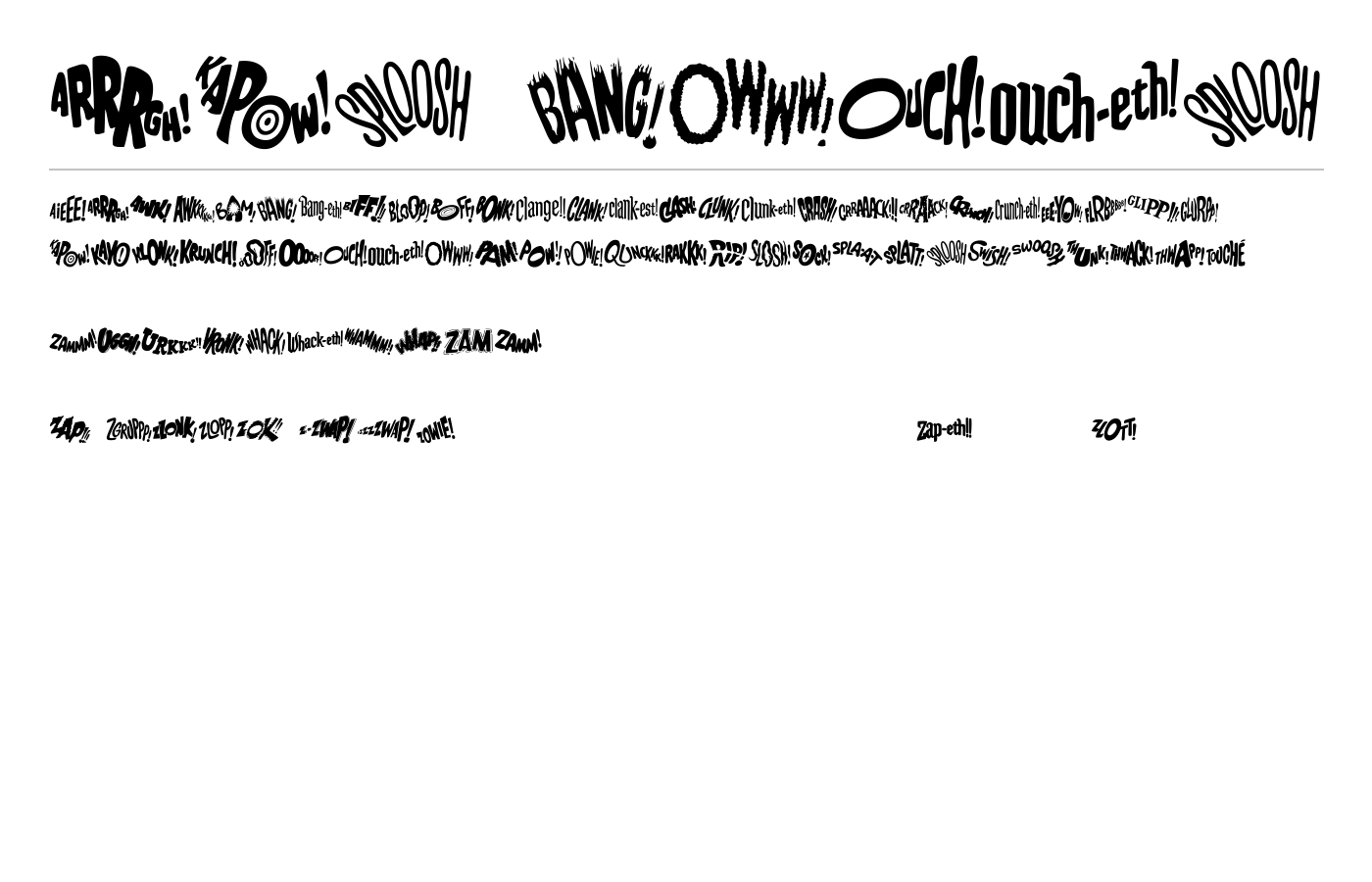
Bat Fight is a bold, playful display font inspired by comic book sound effects, featuring irregular, highly expressive letterforms with varied stroke widths and dynamic shapes. Its uneven, exaggerated style conveys excitement and action, making it perfect for fun headlines, graphic novels, posters, and any design that needs an energetic, comic-inspired vibe. This font works best where impact and personality are key, bringing a lively and bold feel to creative projects.
Bat Fight Font
About Bat Fight Font
| Font family | Bat Fight Font |
| Designer | Frank Lawrence |